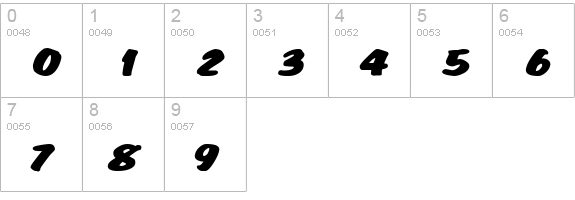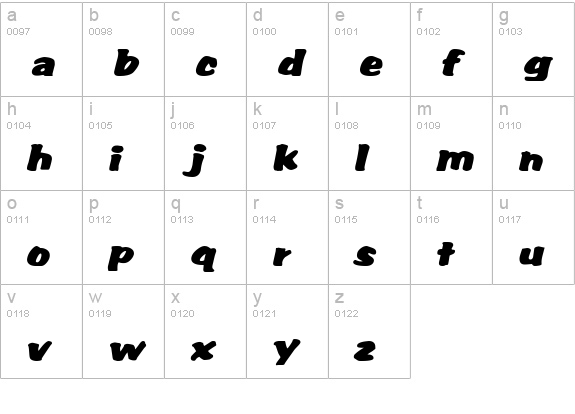
Albert Italic is a distinctive, italic variant in the Albert typeface family \xE2\x80\x94 well suited to design and typography projects.
Introducing Albert Italic font - a sleek and modern typeface that adds a touch of sophistication to any design project. With its elegant curves and stylish letterforms, Albert Italic is perfect for creating eye-catching logos, branding materials, and more. This versatile font exudes a sense of class and refinement, making it ideal for a wide range of applications. And the best part? Albert Italic is available for free download at FontsMarket.com. So whether you're a designer looking to elevate your work or a business owner seeking a distinctive font for your brand, Albert Italic is the perfect choice. Download it today and take your designs to the next level with this stunning typeface.